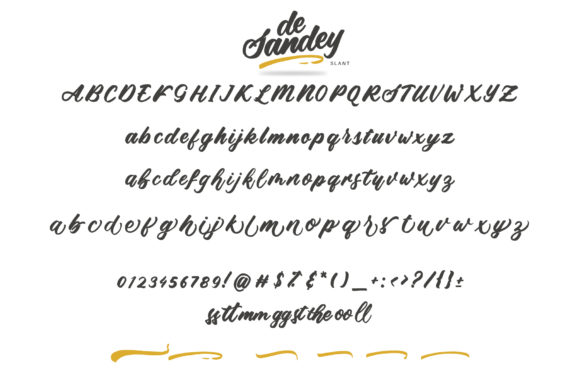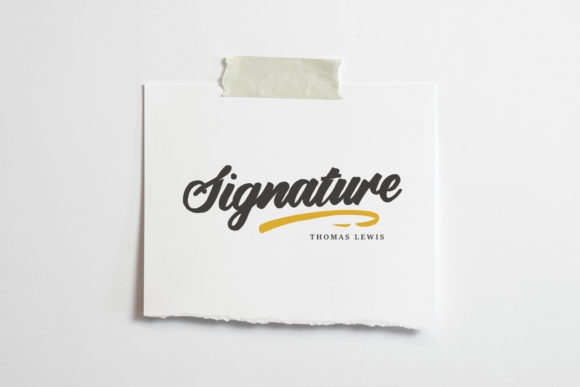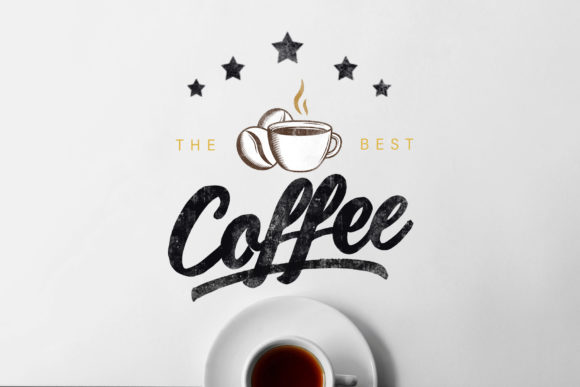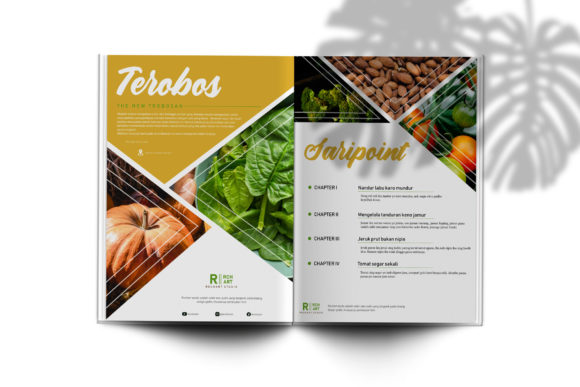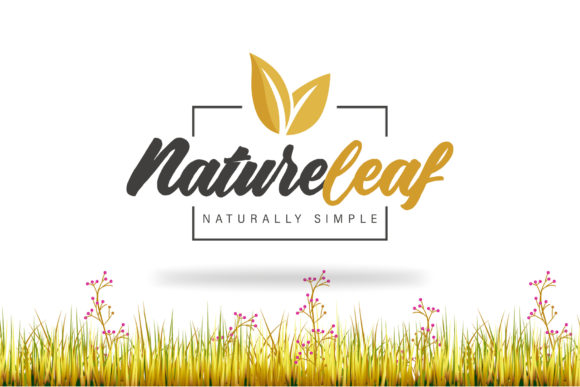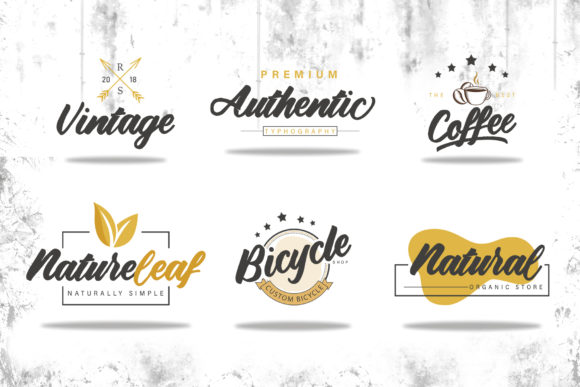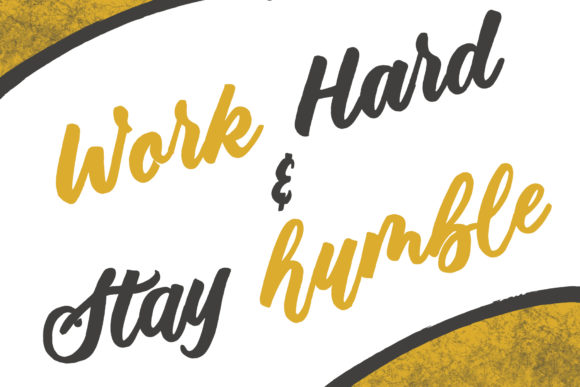
De Sandey Font
About De Sandey Font
De Sandey is a beautiful and flowing handwritten font, created with the help of a brush pen. It is PUA encoded which means you can access all of the glyphs and swashes with ease! It features a varying baseline, smooth lines, gorgeous glyphs and stunning alternates. Fall in love with its incredibly versatile style and use it to create gorgeous wedding invitations, beautiful stationary art, eye-catching social media posts, and much more!